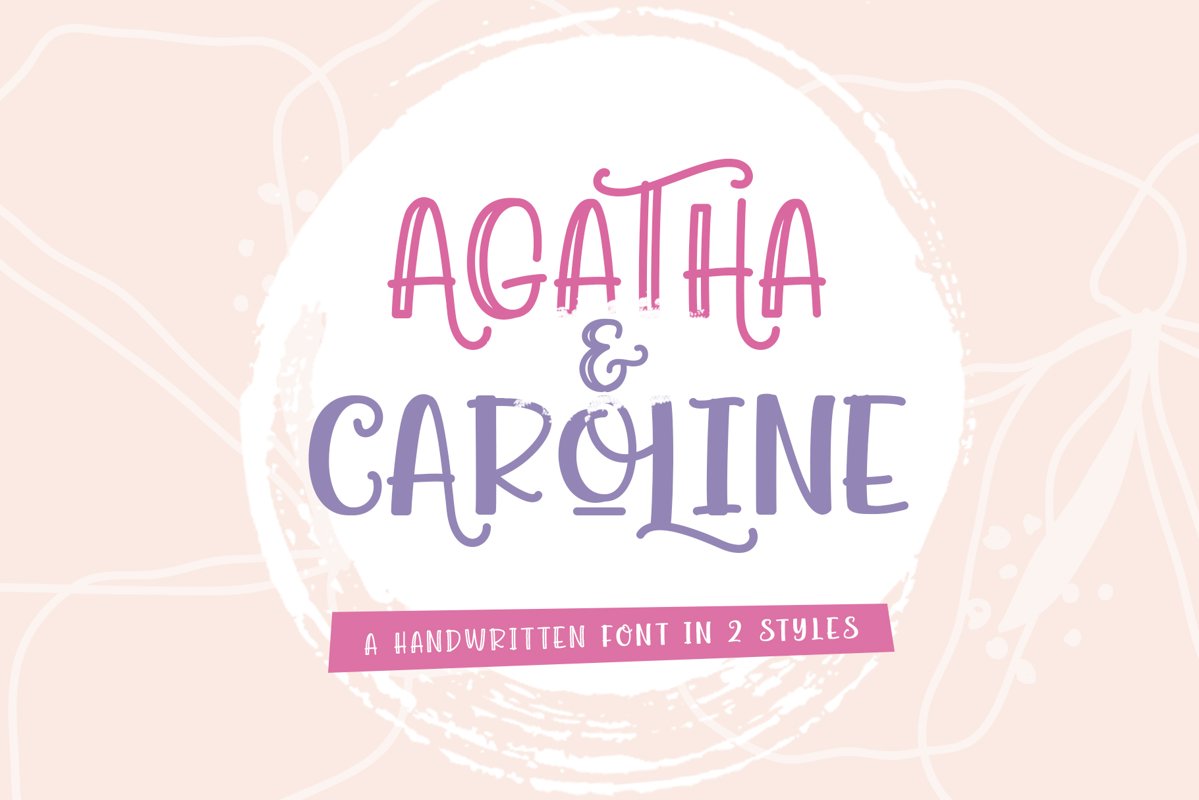
Agatha Caroline - Handwritten Font in 2 Styles
Agatha Caroline is a tasty new font for all of your fun projects! It's a mixed-case font, so you can mix and match letters within a word.
This font is perfect for quotes, shirt designs, websites, branding, children's designs, blogs, logos, invitations and more!
Suitable for a combination of uppercase and lowercase letters.
There are 2 styles included:
• Agatha Caroline 1
• Agatha Caroline 2